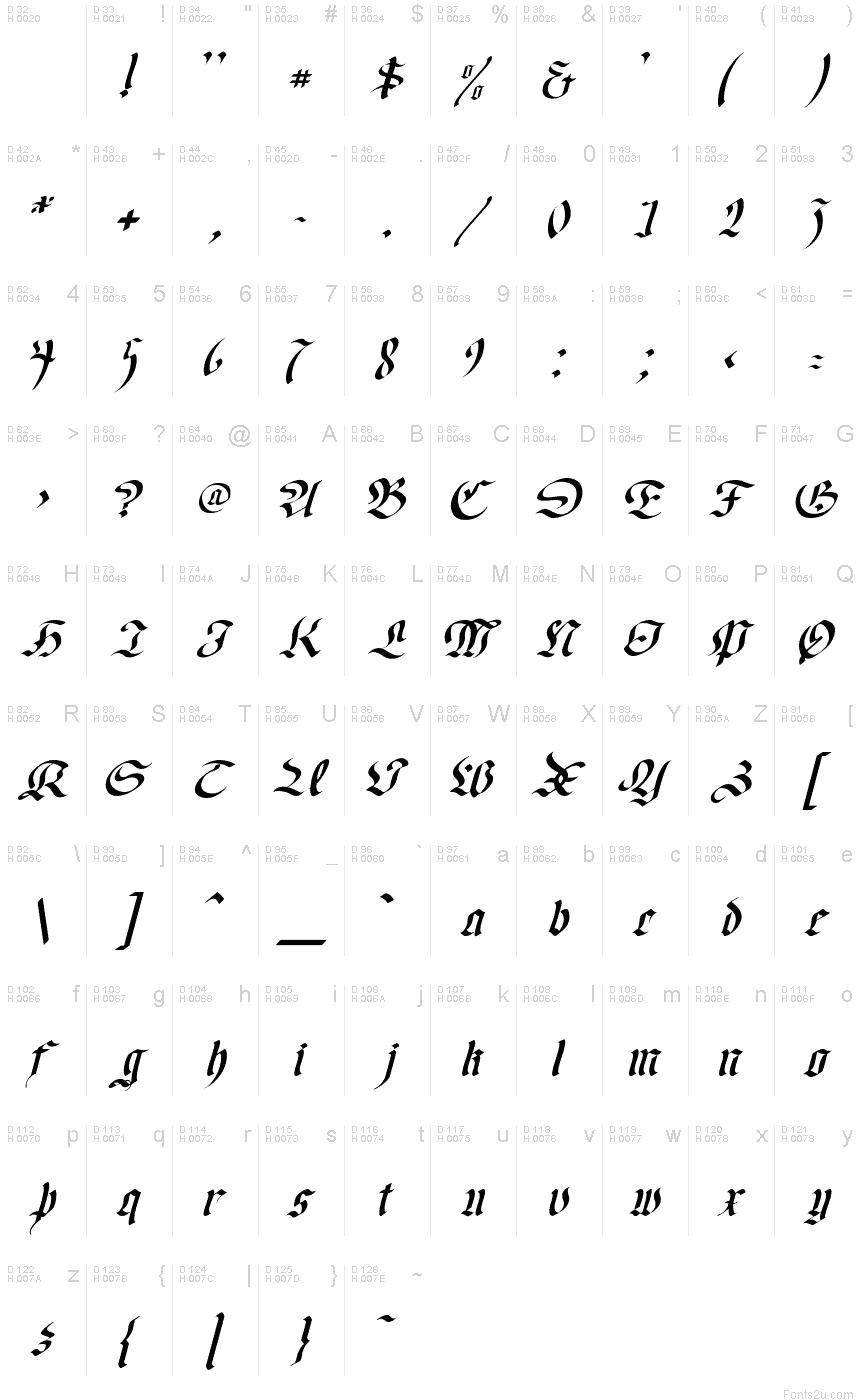
Old German Italic by Atech Software is a free medieval blackletter font with a calligraphic finish. Sweeping capitals, sharp joins, and dramatic changes in stroke width give the lettering an ornate, restless silhouette.
Its manuscript character suits historical publishing, period film titles, and Renaissance fair posters. The flourished forms can also shape heraldic merchandise and fantasy game graphics, especially for subjects involving old kingdoms, ceremonial documents, or courtly intrigue.